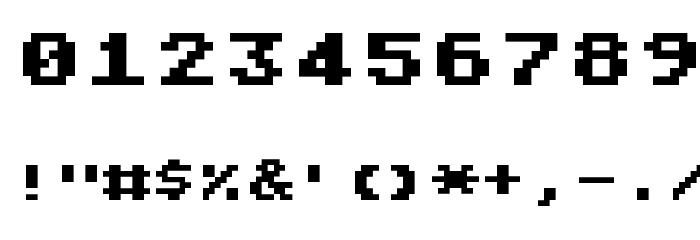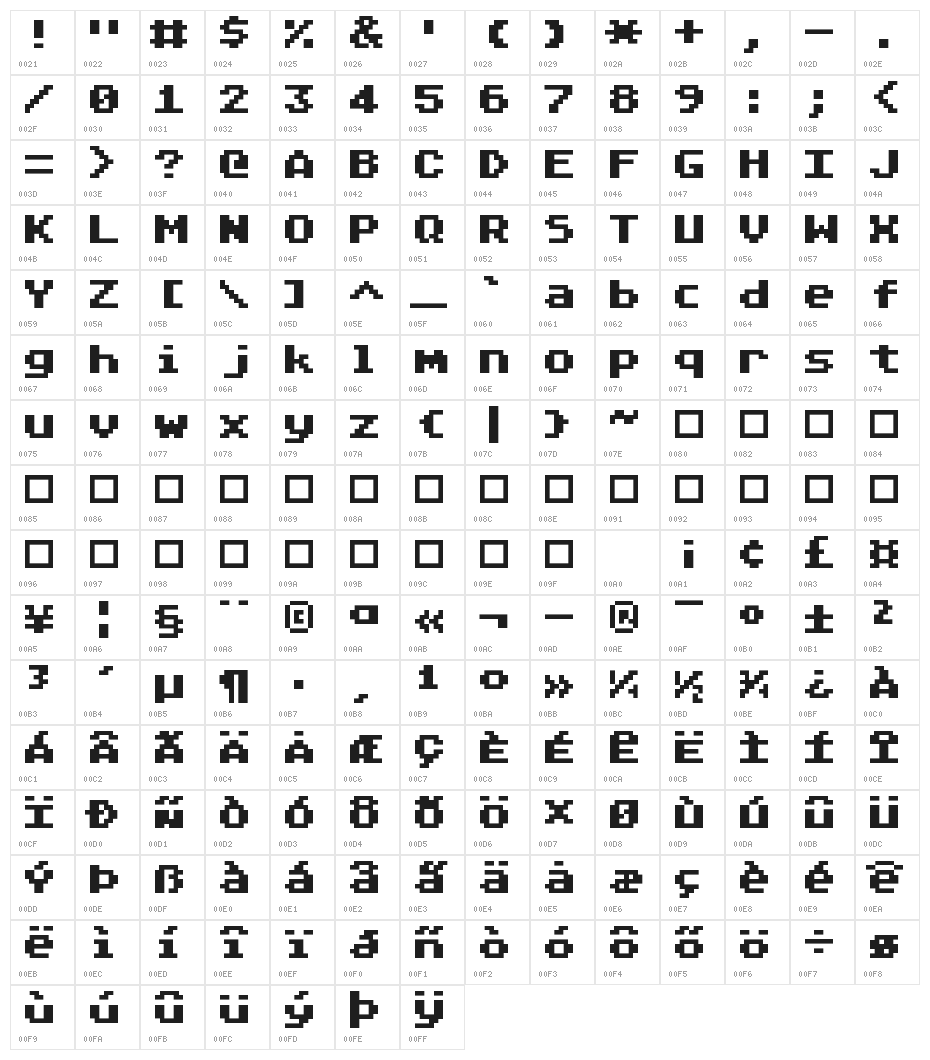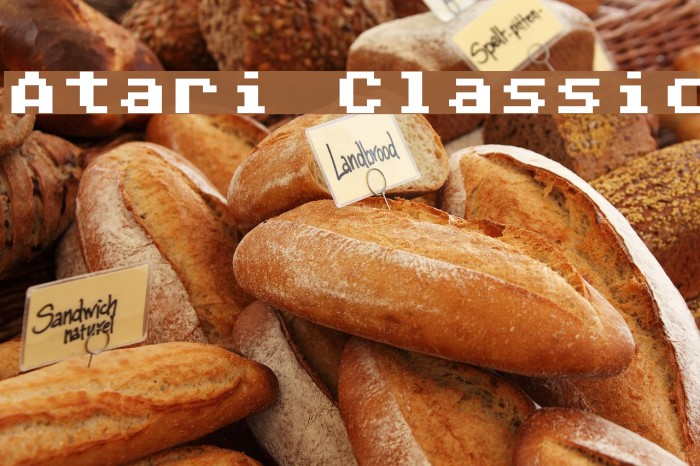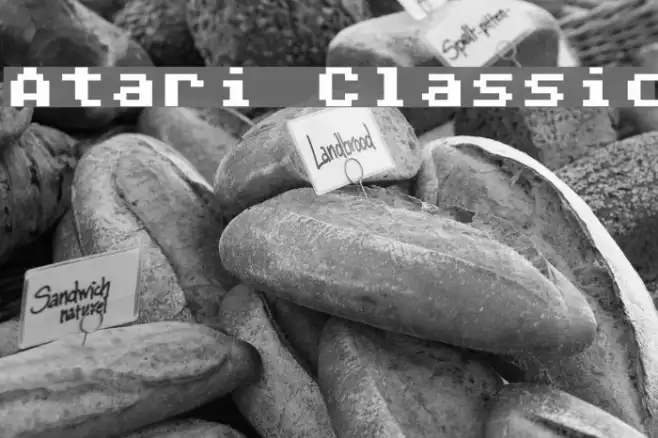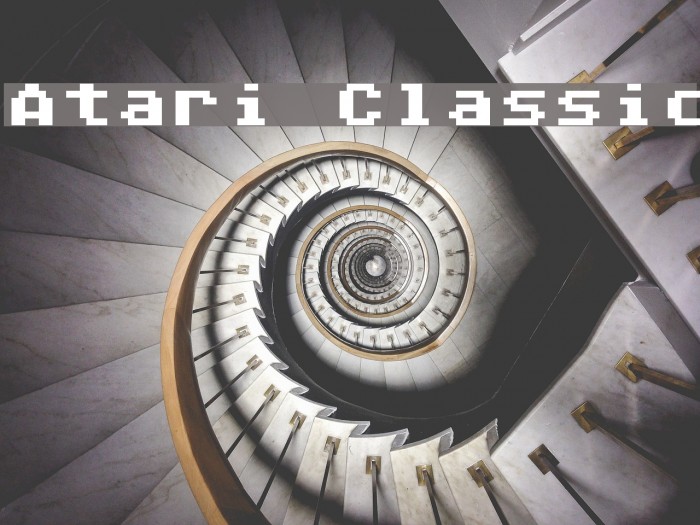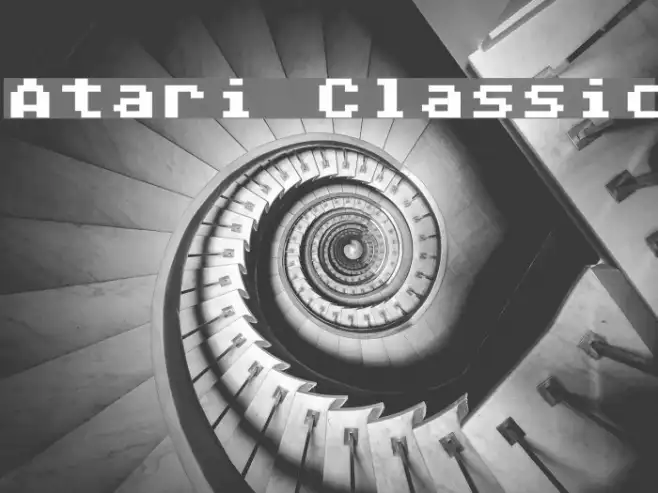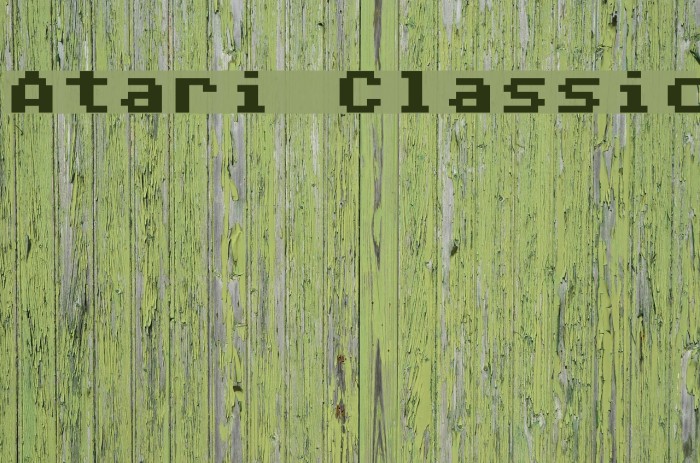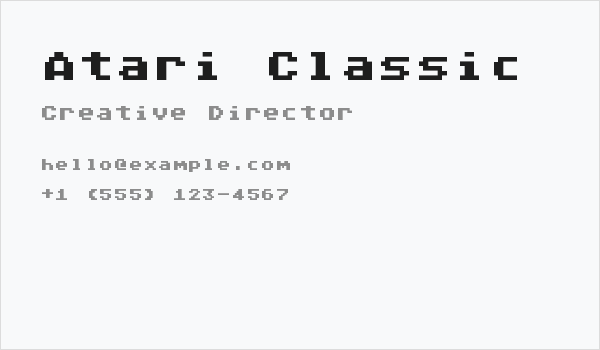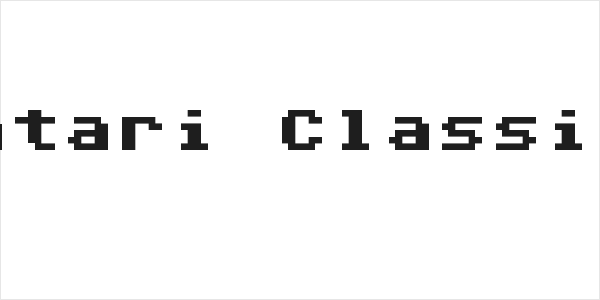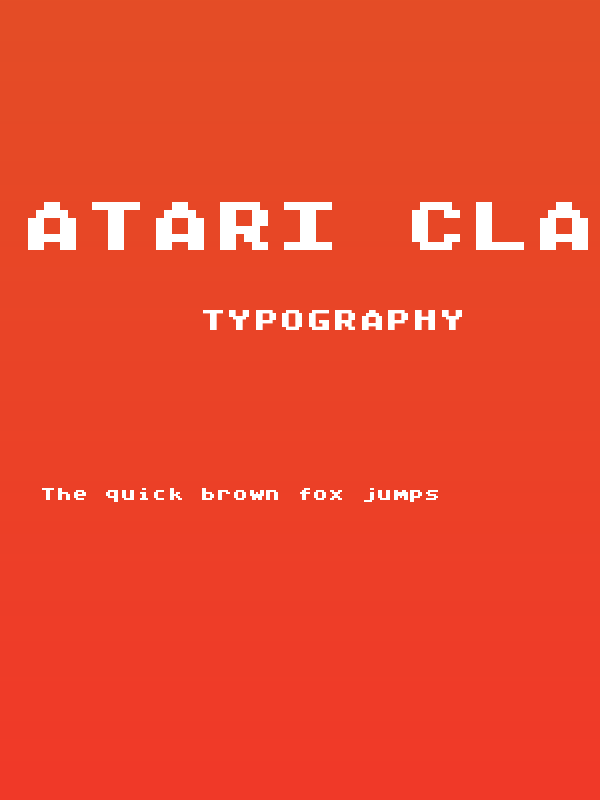
Atari Classic Font
Atari Classic Description
This font features a retro, pixelated design reminiscent of early video game graphics. Each character is constructed with a blocky, grid-like appearance, evoking a sense of nostalgia for classic arcade games. The uppercase and lowercase letters maintain a consistent width, contributing to a uniform and structured look. Numbers and special characters follow the same pixelated style, ensuring visual coherence across all elements. The font's simplicity and boldness make it highly legible, even at smaller sizes, while its unique style adds a playful and vintage touch to any design.
| Proposed Projects | Ideal for video game designs, retro-themed posters, digital art, and nostalgic branding projects. |